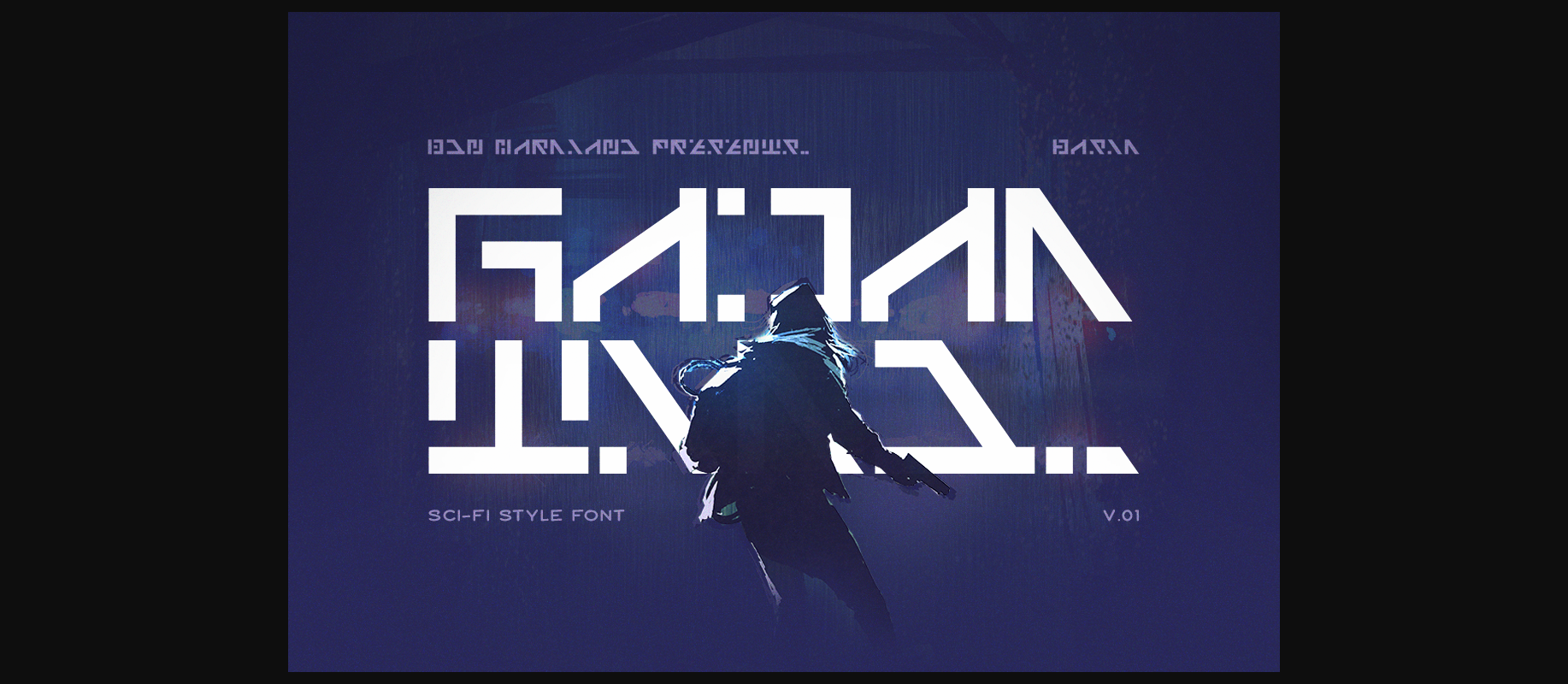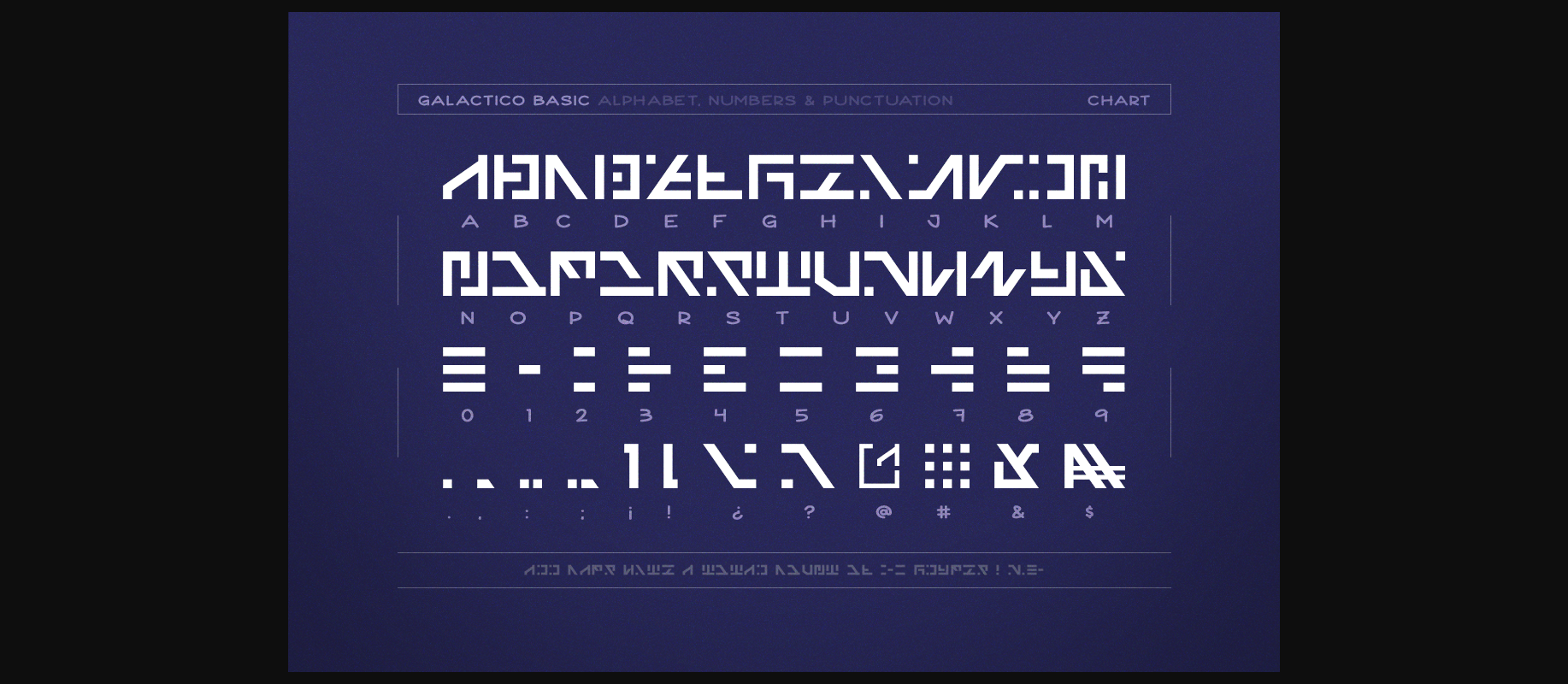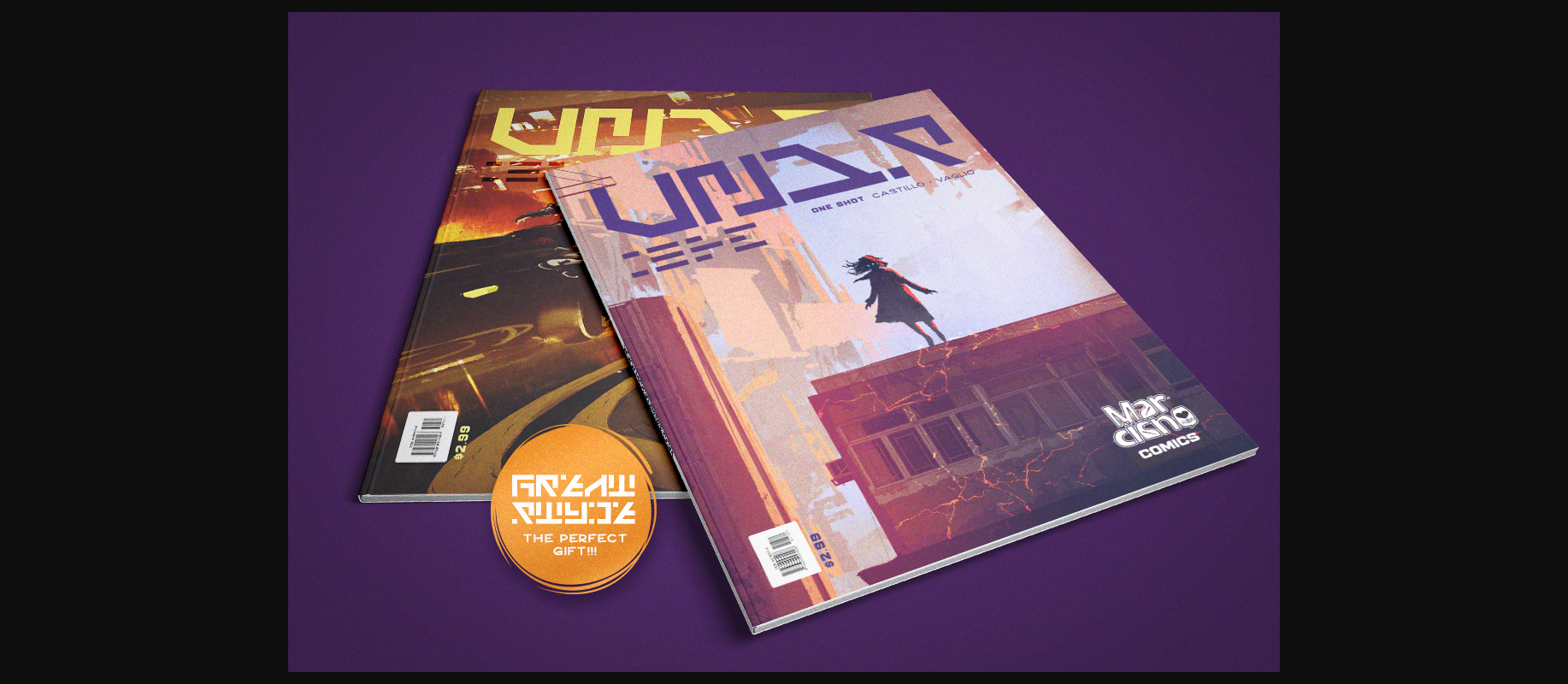
About Galactico Font
Inspired by Sci-Fi, Galactico is an modern and bold font with a unique feel. It will add a cool and futuristic vibe to any design project.